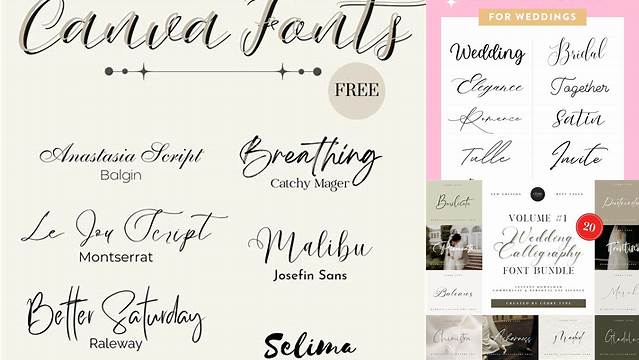
Elegant Canva Cursive Fonts For Your Dream Wedding
Hey there, soon-to-be-weds! Planning a wedding can feel like a whirlwind, right? There are so many details to consider, from the venue and flowers to the invitations and seating charts. But don't worry, we're here to help you nail one crucial aspect: the fonts! Specifically, let's dive into the world of Canva cursive fonts and how they can add that perfect touch of elegance and romance to your wedding stationery and beyond.
Why Choose Cursive Fonts for Your Wedding?
Before we jump into specific fonts, let's talk about why cursive fonts are such a popular choice for weddings. Cursive fonts exude sophistication, grace, and a timeless charm. They mimic the flow of handwriting, which gives your wedding materials a personal and intimate feel. Think about it – the swirls and loops of cursive evoke a sense of romance and tradition, perfectly complementing the special occasion you're celebrating. Using cursive fonts thoughtfully can really elevate the overall aesthetic of your wedding, making it feel more polished and professional. They're also incredibly versatile, working well for everything from formal black-tie affairs to more relaxed, rustic celebrations. The key is to choose the right cursive font that matches your wedding's style and personality. Plus, cursive fonts can add a touch of personality and flair to your wedding stationery. They can make your invitations, save-the-dates, and thank you cards feel extra special and memorable. By carefully selecting a cursive font that reflects your unique style as a couple, you can create a cohesive and personalized look that will impress your guests and set the tone for your big day. So, if you're looking to infuse your wedding with a touch of elegance and romance, exploring the world of cursive fonts is definitely the way to go. Consider the overall theme and atmosphere you're aiming for, and let your chosen font be a reflection of your love story.
Top Canva Cursive Fonts for Wedding Invitations
Okay, let's get to the good stuff! Canva is a treasure trove of amazing fonts, and there are tons of gorgeous cursive options perfect for wedding invitations. But with so many choices, it can be overwhelming to find the perfect one. That's why we've rounded up some of our absolute favorites, so you can spend less time scrolling and more time planning your happily ever after. When it comes to wedding invitations, you want a font that's not only beautiful but also highly legible. After all, your guests need to be able to read the important details like the date, time, and location! Fonts that strike a balance between elegance and clarity are ideal. Think about the overall style of your wedding. Is it a classic and formal affair, or a more relaxed and bohemian celebration? The font you choose should reflect the vibe you're going for. For example, a script with delicate flourishes might be perfect for a traditional wedding, while a bolder, more modern cursive could suit a contemporary celebration.
Let's explore some standout options. First up, we have "Parisienne," a classic and elegant script with beautiful, flowing lines. This font is perfect for adding a touch of sophistication to your invitations and is particularly well-suited for traditional or romantic weddings. It has a timeless quality that will never go out of style. Next, consider "Great Vibes," a slightly more modern cursive with a playful yet refined feel. This font is incredibly versatile and can work well for a variety of wedding styles, from rustic to chic. It has a natural, handwritten look that adds a personal touch. For a touch of vintage charm, "Playlist Script" is an excellent choice. This font has a retro-inspired feel with its bold strokes and distinct letterforms. It's perfect for couples who love a touch of nostalgia. And for a truly elegant and delicate option, "Kingsland" is a stunning choice. Its fine lines and graceful curves make it ideal for creating a luxurious and sophisticated impression. It's especially beautiful when paired with simple, minimalist designs. Remember, the perfect font is one that not only looks beautiful but also complements the overall design of your invitation and reflects your personal style as a couple. So, take your time, experiment with different options, and don't be afraid to mix and match fonts to create a truly unique and memorable invitation suite.
Spotlight on "Parisienne"
Let's take a closer look at "Parisienne," one of our top picks for wedding invitations. This font is a true classic, exuding elegance and sophistication with its beautiful, flowing lines. Think of strolling along the Seine in Paris – that's the kind of romantic vibe this font brings to the table! One of the things that makes "Parisienne" so special is its timeless quality. It's a font that will never go out of style, making it a safe and stylish choice for your wedding invitations. Its graceful curves and delicate flourishes add a touch of luxury without being overly ornate. It strikes the perfect balance between elegance and readability, which is crucial for ensuring your guests can easily read the important details of your wedding. "Parisienne" works particularly well for traditional or romantic weddings, but it can also be incorporated into other styles with the right design elements. It pairs beautifully with classic serif fonts for a sophisticated look, or you can use it as the main font for a minimalist design to let its elegance shine.
When using "Parisienne," consider the weight and size of the font. A slightly larger font size will ensure readability, especially for guests with visual impairments. You can also experiment with different colors to see what best complements your overall design. Gold foil on a dark background, for example, can create a stunning and luxurious effect. In addition to invitations, "Parisienne" can also be used for other wedding stationery, such as save-the-dates, menus, and thank you cards. Using the same font throughout your wedding materials will create a cohesive and polished look. If you're looking to add a touch of timeless elegance to your wedding, "Parisienne" is definitely a font worth considering. It's a beautiful and versatile option that will help you create a wedding invitation suite that is both memorable and stylish. It's also a great font to consider using if you want to make your wedding feel even more luxurious.
Spotlight on "Great Vibes"
Now, let's shine a spotlight on another fantastic Canva cursive font: "Great Vibes." This font is a bit more modern and playful than "Parisienne," but it still retains that elegant cursive charm. Think of it as the cool, chic cousin of the traditional scripts. "Great Vibes" is incredibly versatile, making it a great choice for couples who want a font that can work for a variety of wedding styles. Whether you're planning a rustic barn wedding, a chic city celebration, or a bohemian beach bash, "Great Vibes" can adapt to the vibe. One of the things we love most about "Great Vibes" is its natural, handwritten look. It has a casual elegance that feels personal and inviting, as if the words were written just for your guests. This makes it perfect for creating a warm and welcoming atmosphere for your wedding. The font's flowing lines and elegant curves add a touch of sophistication, while its slightly bolder strokes make it easy to read. This is key for ensuring your guests can easily access all the important information about your big day.
"Great Vibes" pairs well with a variety of other fonts. For a classic and sophisticated look, try pairing it with a simple serif font. For a more modern and playful feel, you can combine it with a sans-serif font. When using "Great Vibes," consider the spacing between the letters and words. A little extra space can help the font breathe and prevent it from looking too crowded. You can also experiment with different colors and textures to create a unique look. Imagine "Great Vibes" in gold foil on a textured paper – stunning! Beyond invitations, "Great Vibes" can also be used for other wedding-related materials, such as signage, programs, and thank you notes. Using the same font throughout your wedding will create a cohesive and polished look that your guests will appreciate. If you're looking for a cursive font that's both elegant and versatile, "Great Vibes" is definitely worth checking out. It's a fantastic option for couples who want to add a touch of personality and charm to their wedding stationery. It's easy to read, great looking and will ensure your wedding looks memorable for all the right reasons.
Beyond Invitations: Using Cursive Fonts in Other Wedding Materials
Okay, so we've talked a lot about invitations, but cursive fonts can do so much more for your wedding! They're like the secret weapon for adding a touch of elegance and personalization to all sorts of details. Think beyond the invitation suite and consider how you can incorporate cursive fonts into other aspects of your wedding, from signage to décor. Imagine a welcome sign with a beautifully scripted message, or table numbers written in a delicate cursive font. These small details can make a big impact on the overall aesthetic of your wedding. One popular use for cursive fonts is in wedding signage. Welcome signs, seating charts, and direction signs can all benefit from the addition of a stylish cursive font. This helps to create a cohesive look and feel throughout your wedding venue. You can also use cursive fonts to create personalized details, such as monograms or custom logos. These can be incorporated into various elements of your wedding, from napkins and favors to your wedding website.
Another fun idea is to use cursive fonts for your wedding programs or menus. This adds a touch of elegance to these essential items and makes them feel extra special. You can even use cursive fonts for your place cards or escort cards, adding a personalized touch for each guest. When incorporating cursive fonts into your wedding materials, remember to maintain consistency. Choose one or two cursive fonts and use them throughout your wedding for a cohesive look. You can also mix and match cursive fonts with other font styles, such as serif or sans-serif fonts, to create visual interest. Just be sure to choose fonts that complement each other and reflect the overall style of your wedding. So, don't limit cursive fonts to just your invitations. Get creative and explore how you can use them to add a touch of elegance and personalization to all the details of your wedding. It's all these small details which come together to make your wedding even more special and unique.
So there you have it, guys! A deep dive into the world of Canva cursive fonts for your wedding. We've covered why cursive fonts are a great choice, highlighted some of our favorite options, and shared tips for choosing the perfect font for your big day. Remember, the font you choose is just one piece of the puzzle, but it can play a significant role in setting the tone and style of your wedding. By carefully selecting a cursive font that reflects your personality and wedding theme, you can create a cohesive and memorable experience for you and your guests. Don't be afraid to experiment, have fun, and let your creativity shine! With Canva's vast selection of fonts and user-friendly design tools, you'll be able to create wedding materials that are both beautiful and professional. And most importantly, remember to relax and enjoy the process of planning your wedding. It's a special time in your life, so savor every moment! And when in doubt, remember the power of a beautiful cursive font to add that perfect touch of elegance and romance to your celebration. Make sure to choose a font that suits you and your style, and makes you feel like your wedding is truly reflective of you and your partner.